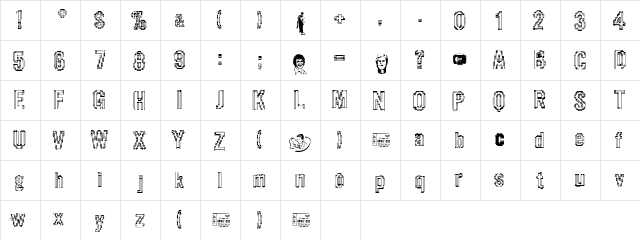
Catastrophe Regular
Design Context for Catastrophe Typeface
Catastrophe is a composed and adaptable typeface that performs quietly and consistently across a wide range of design contexts.